Although fonts available online generally go through various tests and are visually well-balanced, sometimes we might feel that something’s off when typing certain words. Even though the default font settings are usually fine, there are times when you want to make slight adjustments for a more polished appearance. Here’s an easy way to do that, whether you're using Windows or Mac.
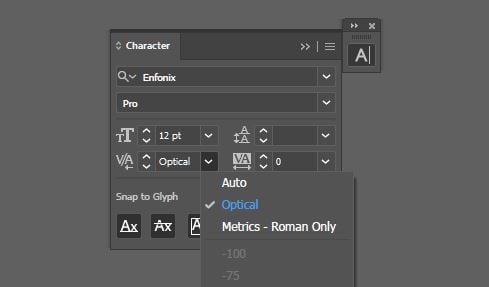
For Windows:
- Select the text you want to adjust.
- Press Ctrl + T to open the Character panel.
- In the Character panel, click the dropdown menu under Kerning.
- Select Optical.
With this setting, the font will automatically adjust, making the text look more balanced. Keep in mind that while this works well with many fonts, not all fonts will look better with this setting. In some cases, the default setting may actually look better. So, use this adjustment according to your needs.
For Mac:
- Select the text you want to adjust.
- Press Command + T to open the Character panel.
- In the Character panel, click the dropdown menu under Kerning.
- Select Optical.
Just like on Windows, make sure to evaluate whether the font you’ve chosen looks better with the default or optical setting.
With this simple adjustment, you can achieve a cleaner, more balanced font appearance on both Windows and Mac. Hope these tips help you out!